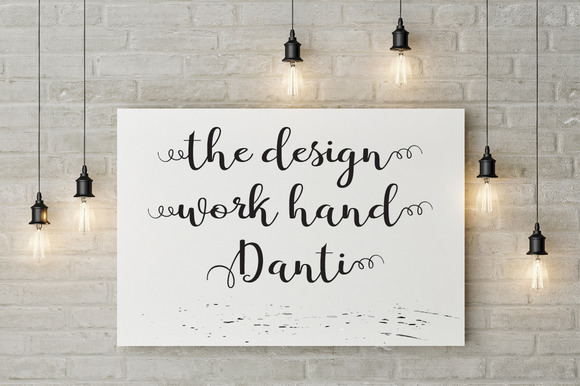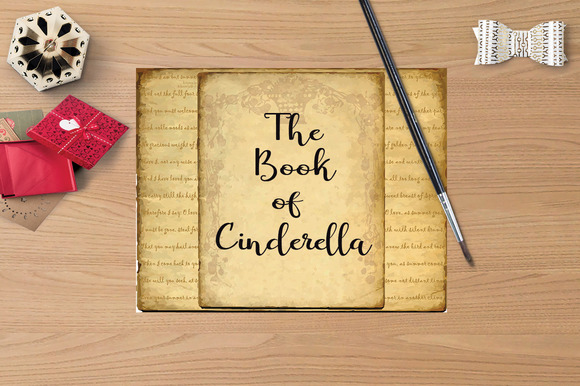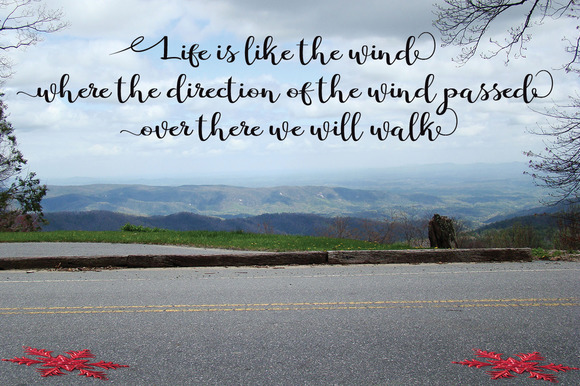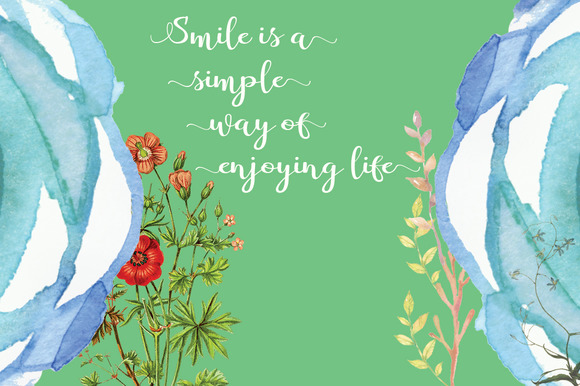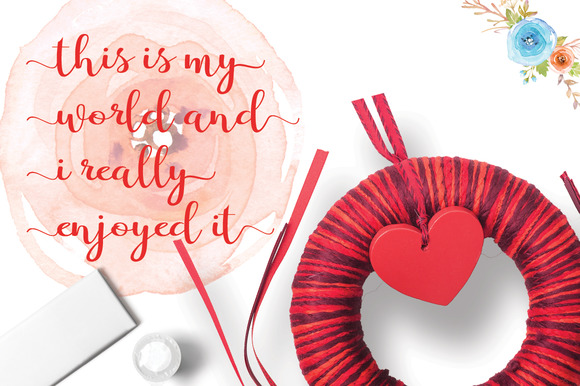
Introduction to Rasyhanda Font
Have you ever found yourself scribbling notes in a coffee shop, trying to capture a creative idea before it slips away? That’s exactly what happened to me last week, when I stumbled upon the Rasyhanda Font. Its unique, handwritten style immediately caught my attention, and I knew I had to share it with fellow designers.
As a valuable design resource, the Rasyhanda Font offers a modern twist on traditional calligraphy, making it perfect for a wide range of creative projects. With its natural writing style, it’s easy to see why designers are drawn to this high-quality font. Whether you’re looking to add a touch of elegance to a website or create a beautiful invitation, the Rasyhanda Font is a great choice.
Key Features of Rasyhanda Font
- High-quality design resource ideal for creative projects and presentations.
- Includes a range of font styles and sizes, including 8 different font sizes (from 10pt to 72pt) and 3 font styles (Regular, Italic, Bold).
- Perfect for use in digital design, such as graphics, logos, and UI elements, as well as print materials like brochures, flyers, and business cards.
- Designed to be highly legible and versatile, making it suitable for a wide range of creative projects and design applications.
Honest Review: Rasyhanda Font
I recently came across the Rasyhanda Font and I must say, I’m impressed. This font is perfect for a creative project that requires a unique touch. One of the things that caught my attention is the high quality of the font, making it ideal for professional use.
- ✨ Unique and stylish design that can add a creative twist to any project
- ✨ Transparent background, which is perfect for overlaying on images or videos
- ⚠️ Limited font styles available, which might not be suitable for all design projects
- ⚠️ Not as extensive as some other font collections, which might make it less versatile
Overall, I’m impressed with the Rasyhanda Font. Its unique design and high quality make it an excellent choice for creative projects. While it may have some limitations, it’s a great resource for designers who want to add a touch of elegance to their work.
To get the most out of the Rasyhanda Font, experiment with different font sizes, colors, and combinations to achieve the desired effect.
The Rasyhanda Font is commonly used for creating logos, graphics, and titles for various projects, including branding, marketing materials, and social media content.
Alternatives to Rasyhanda Font
Great Vibes is a high-quality, elegant script font ideal for creative projects, such as wedding invitations, art prints, or branding materials. It features a transparent background, making it perfect for overlaying on images or other design elements. When to use: Wedding invitations, art prints, branding materials. How it compares to Rasyhanda Font: Great Vibes has a more elegant and sophisticated feel, while Rasyhanda Font is more playful and cursive.
Dancing Script is a beautiful, flowing script font that’s perfect for creative projects, such as blog headers, social media graphics, or packaging design. It features a high-quality design and can be used with a transparent background for a seamless look. When to use: Blog headers, social media graphics, packaging design. How it compares to Rasyhanda Font: Dancing Script has a more dynamic and expressive feel, while Rasyhanda Font is more classic and timeless.
Carolyna Pro is a high-quality, elegant script font that’s perfect for creative projects, such as branding materials, art prints, or packaging design. It features a transparent background and can be used for both personal and commercial projects. When to use: Branding materials, art prints, packaging design. How it compares to Rasyhanda Font: Carolyna Pro has a more refined and sophisticated feel, while Rasyhanda Font is more playful and cursive.